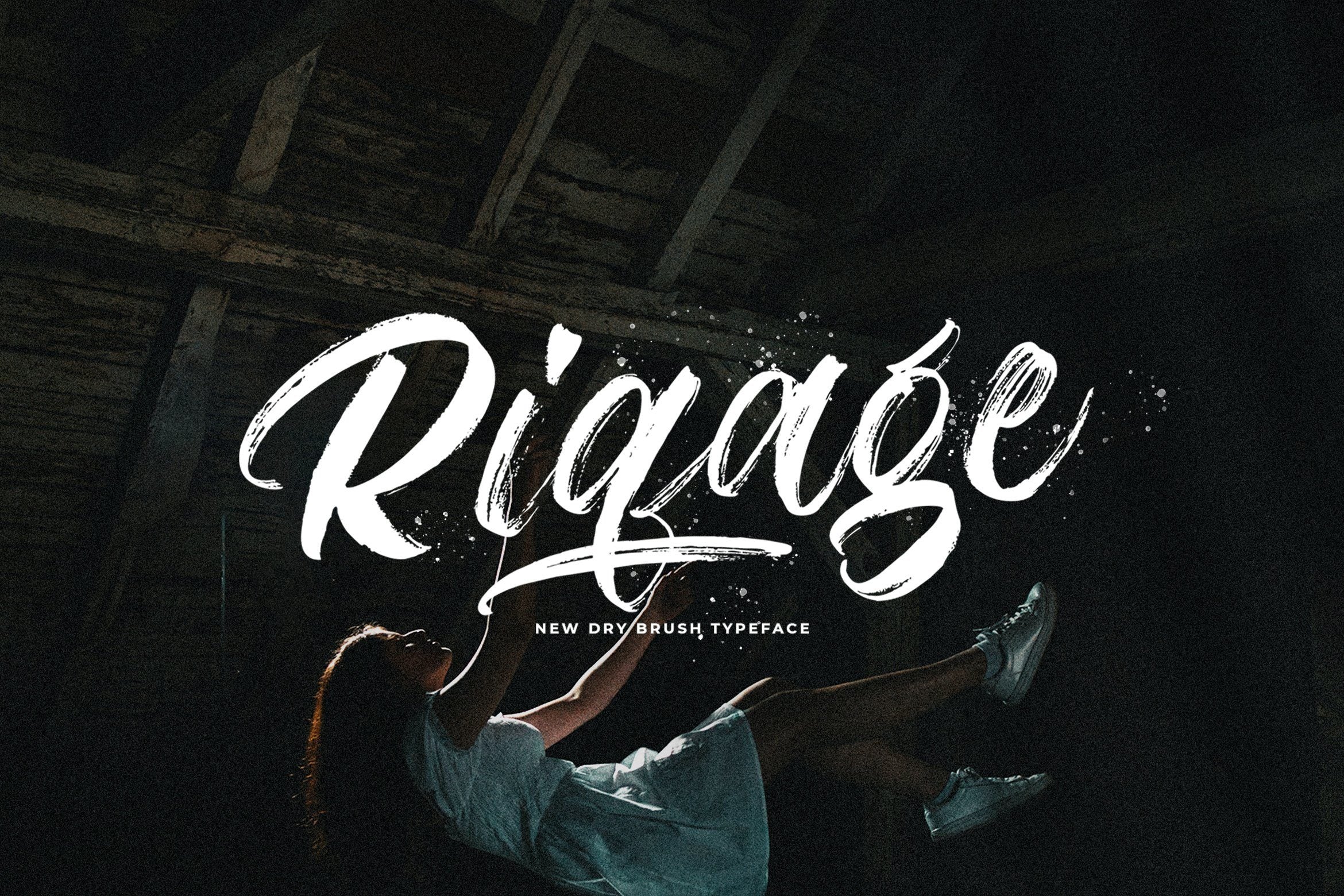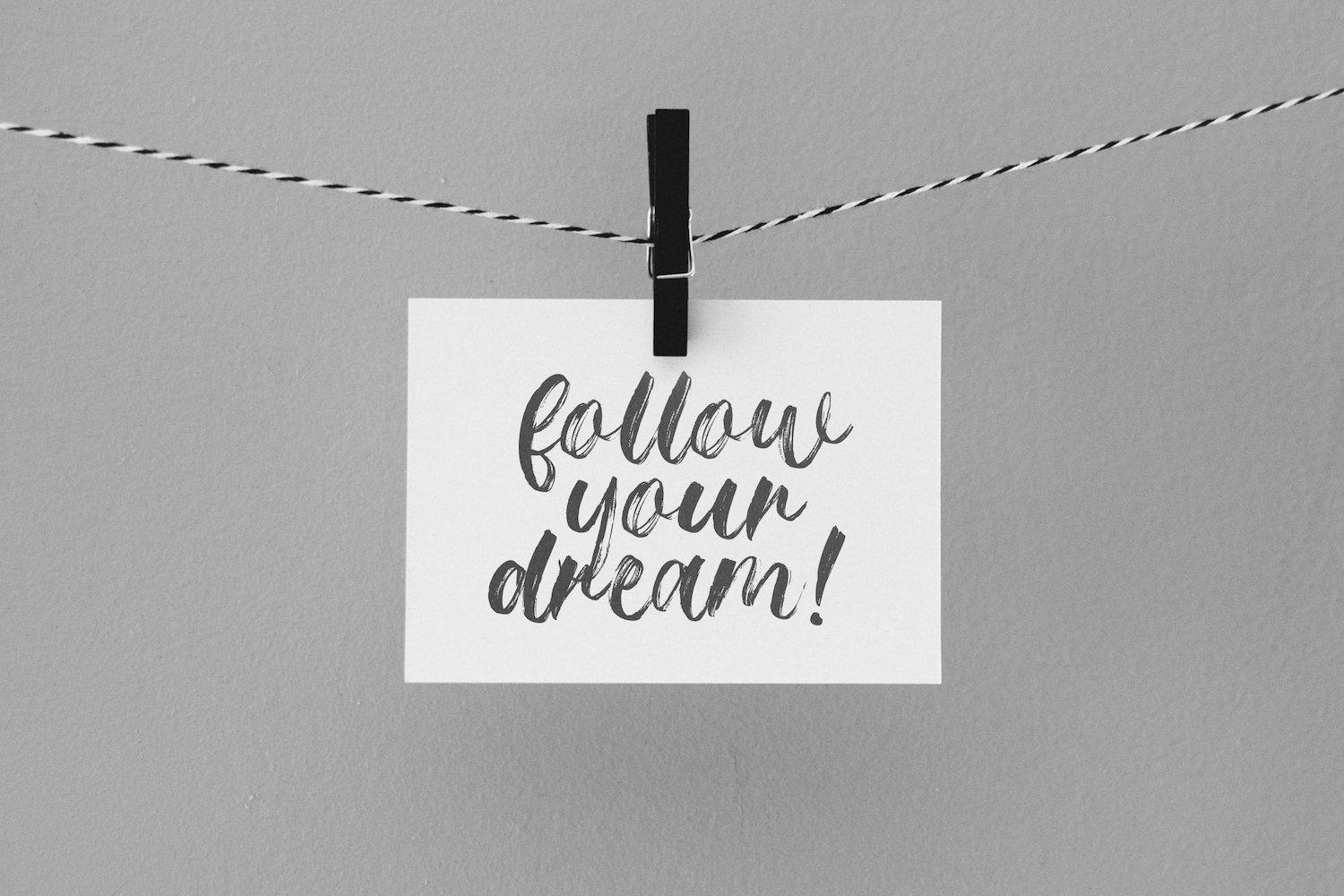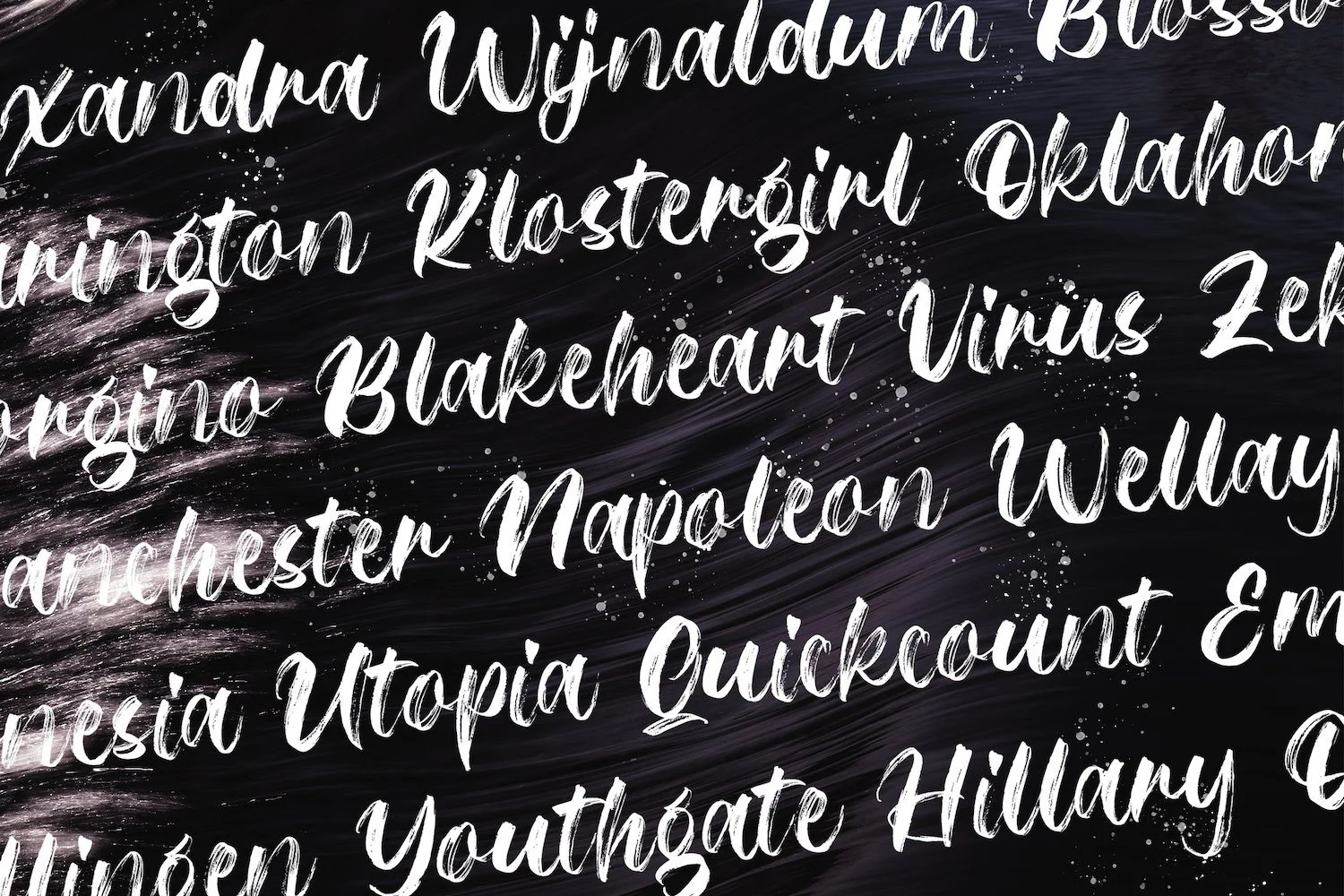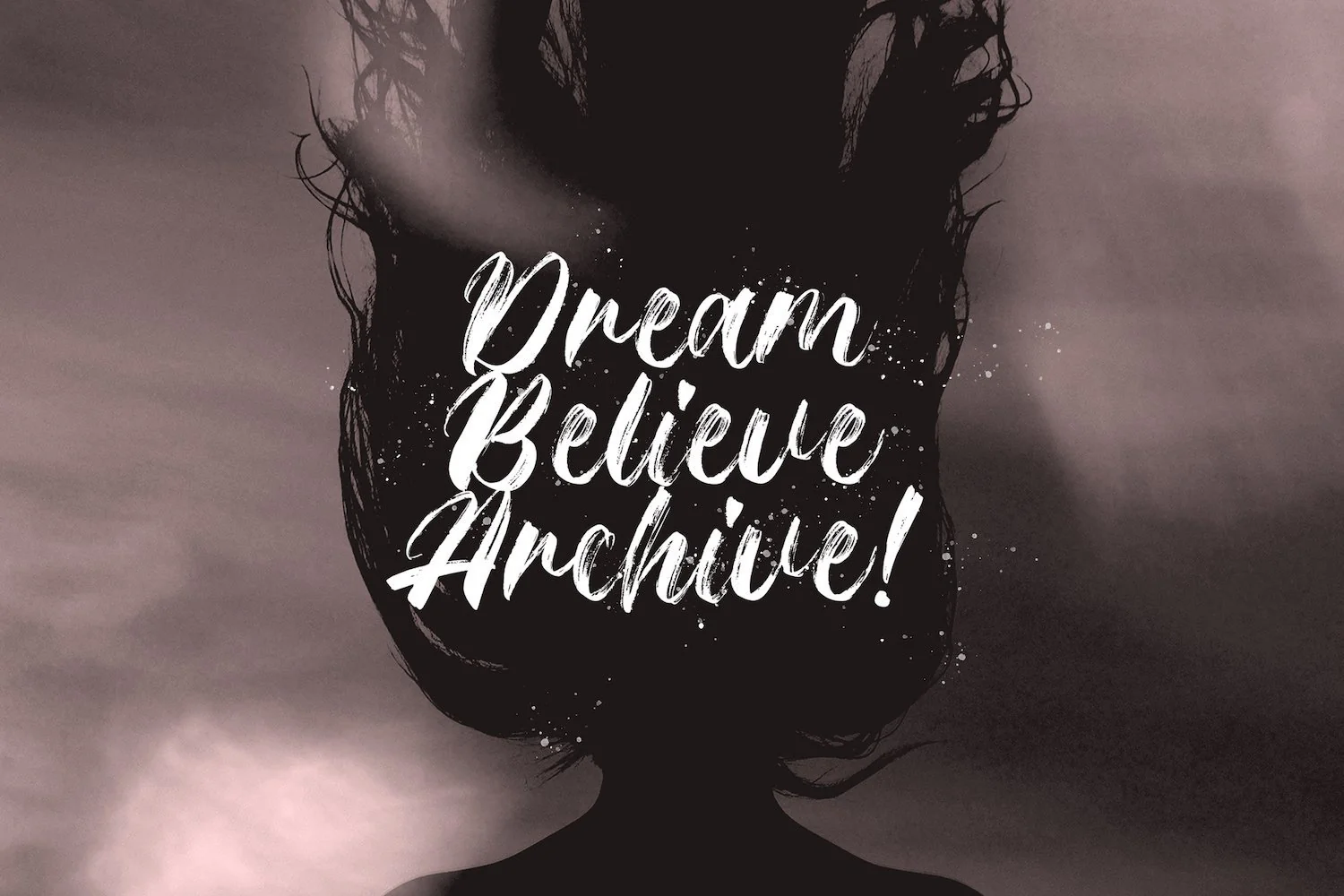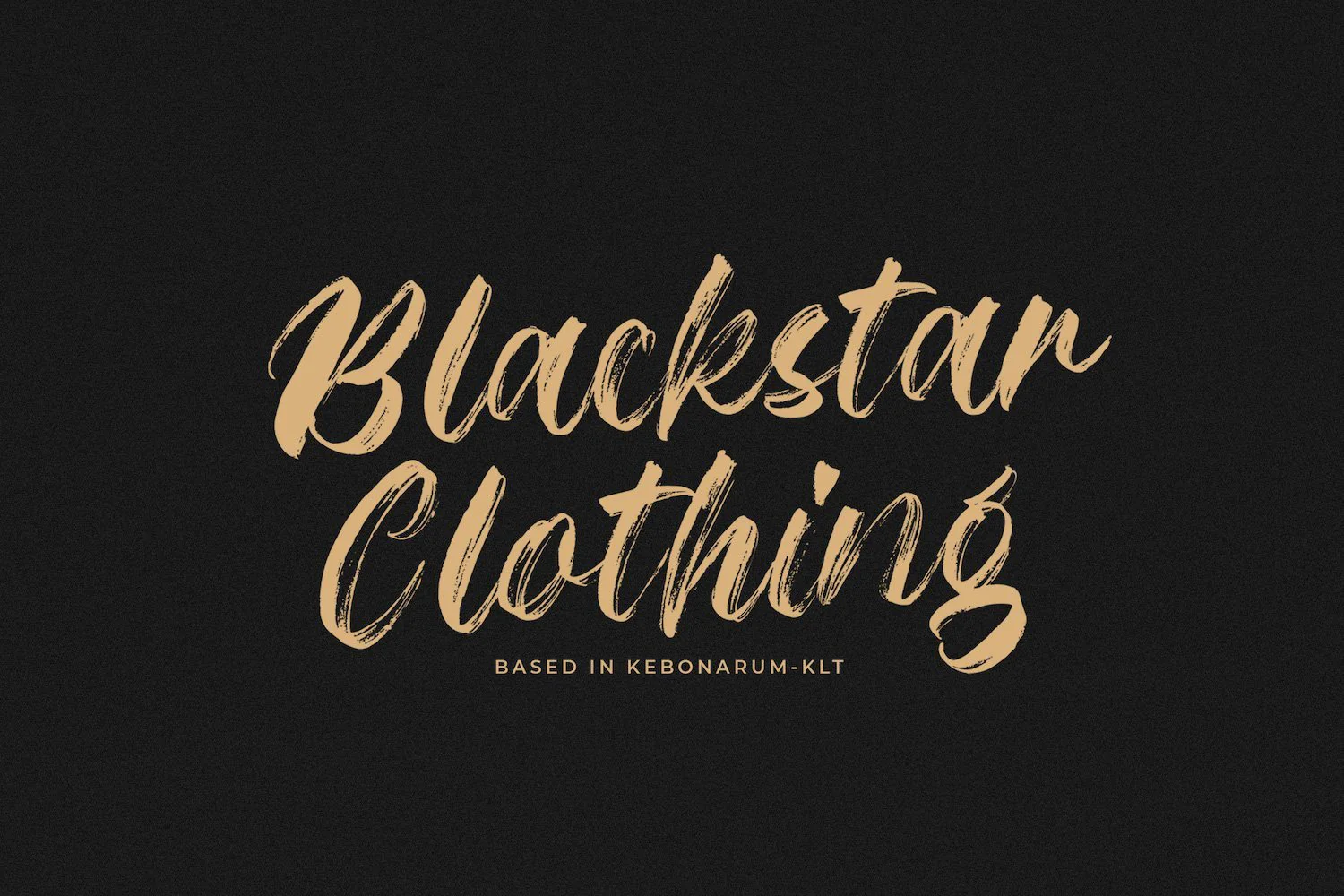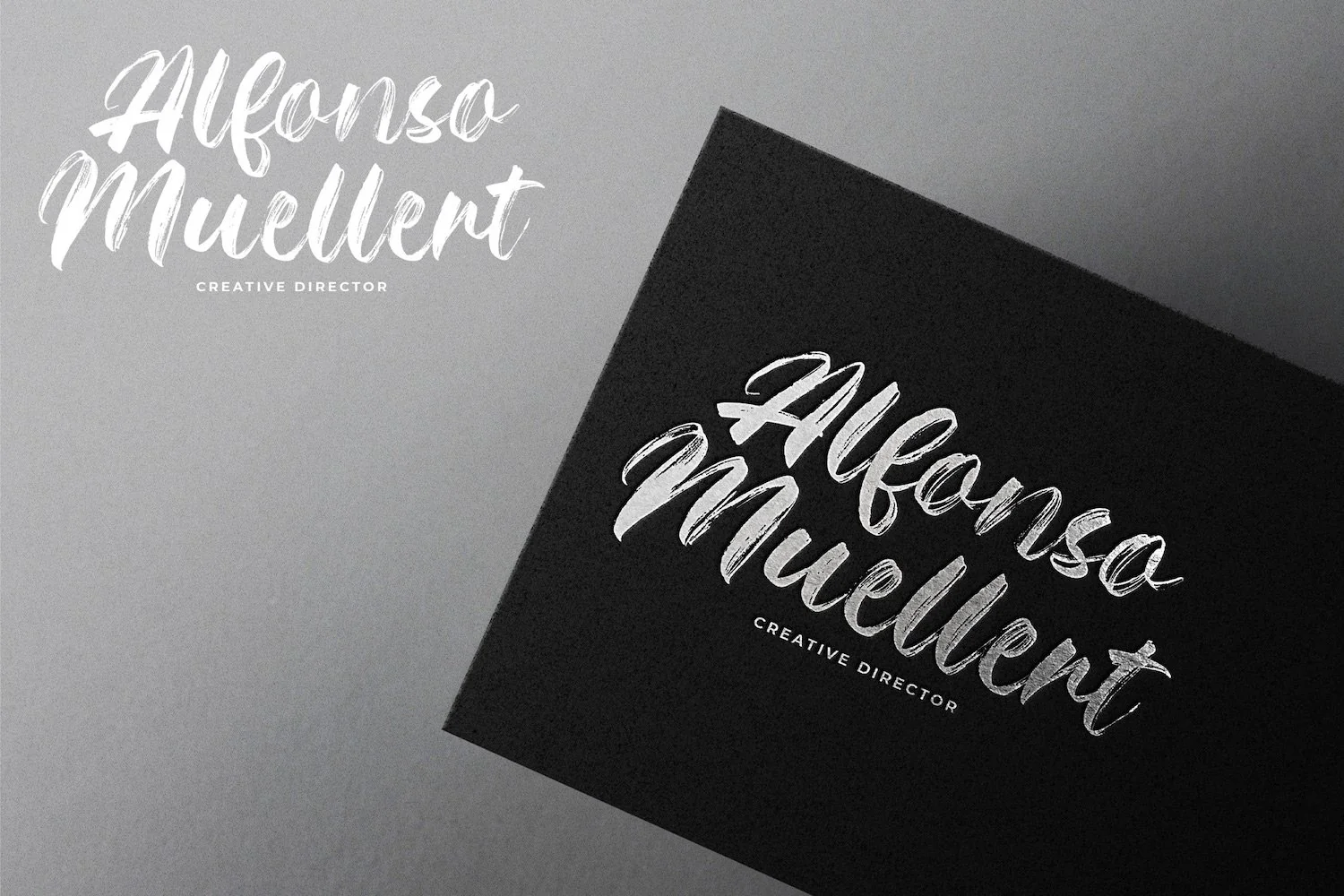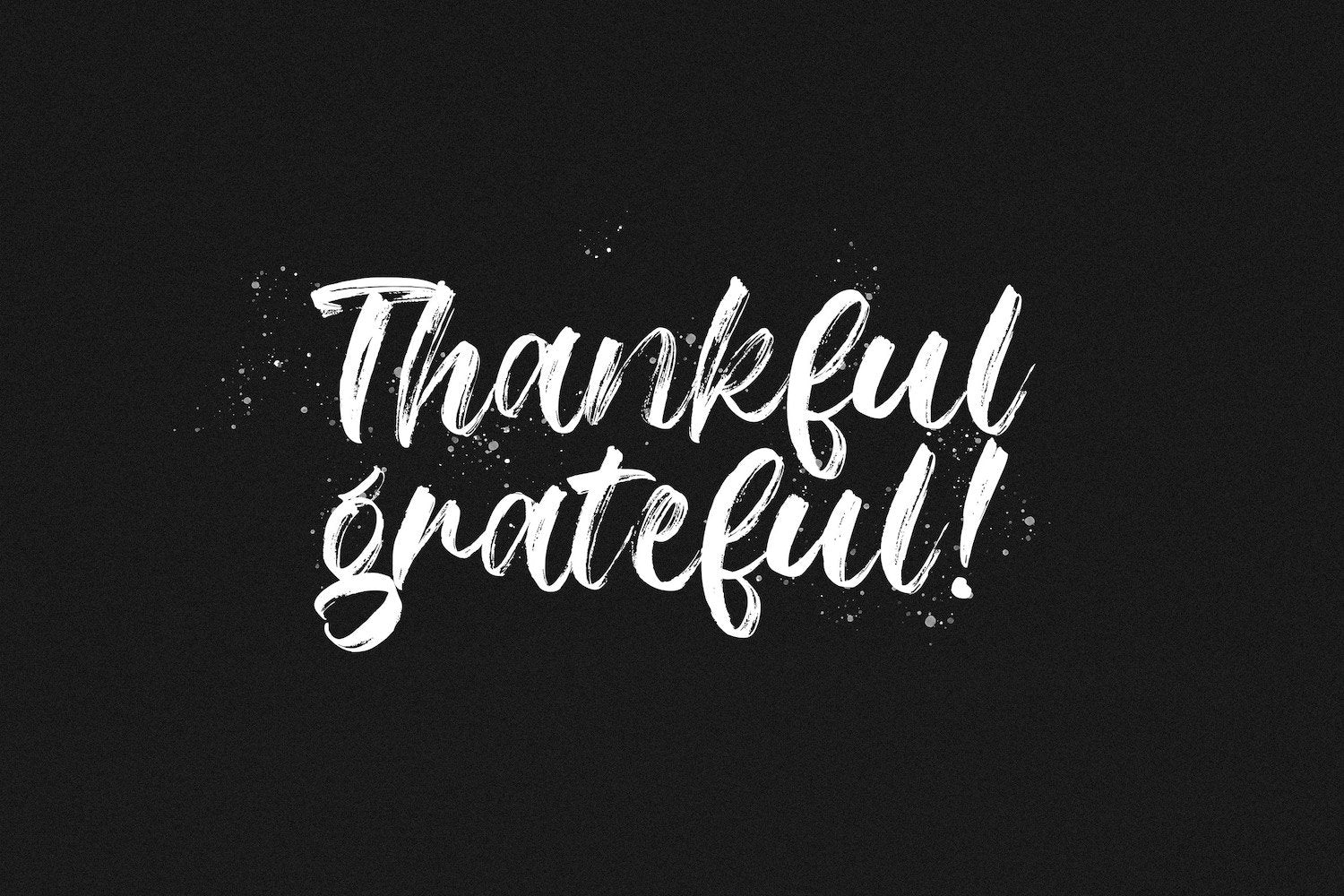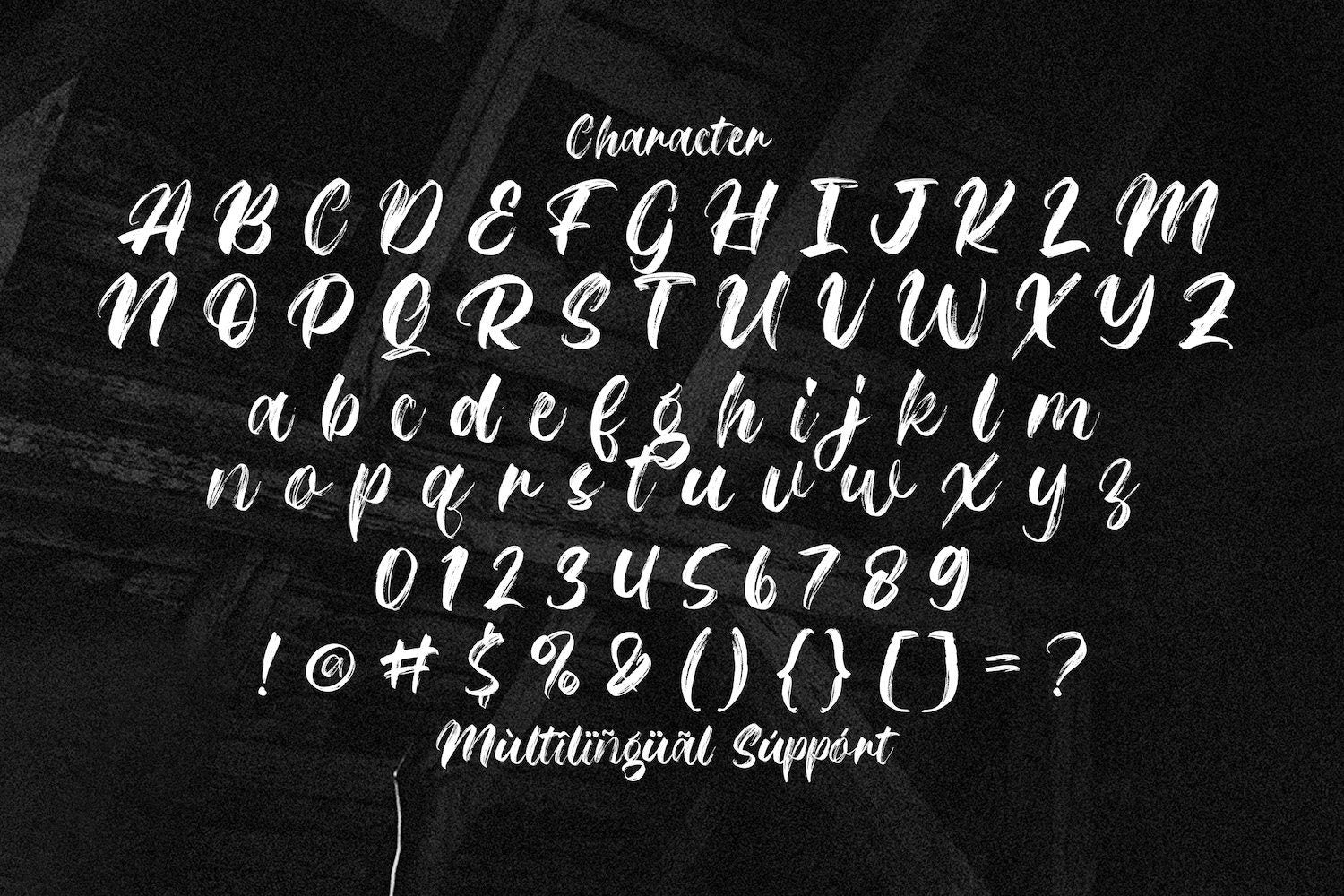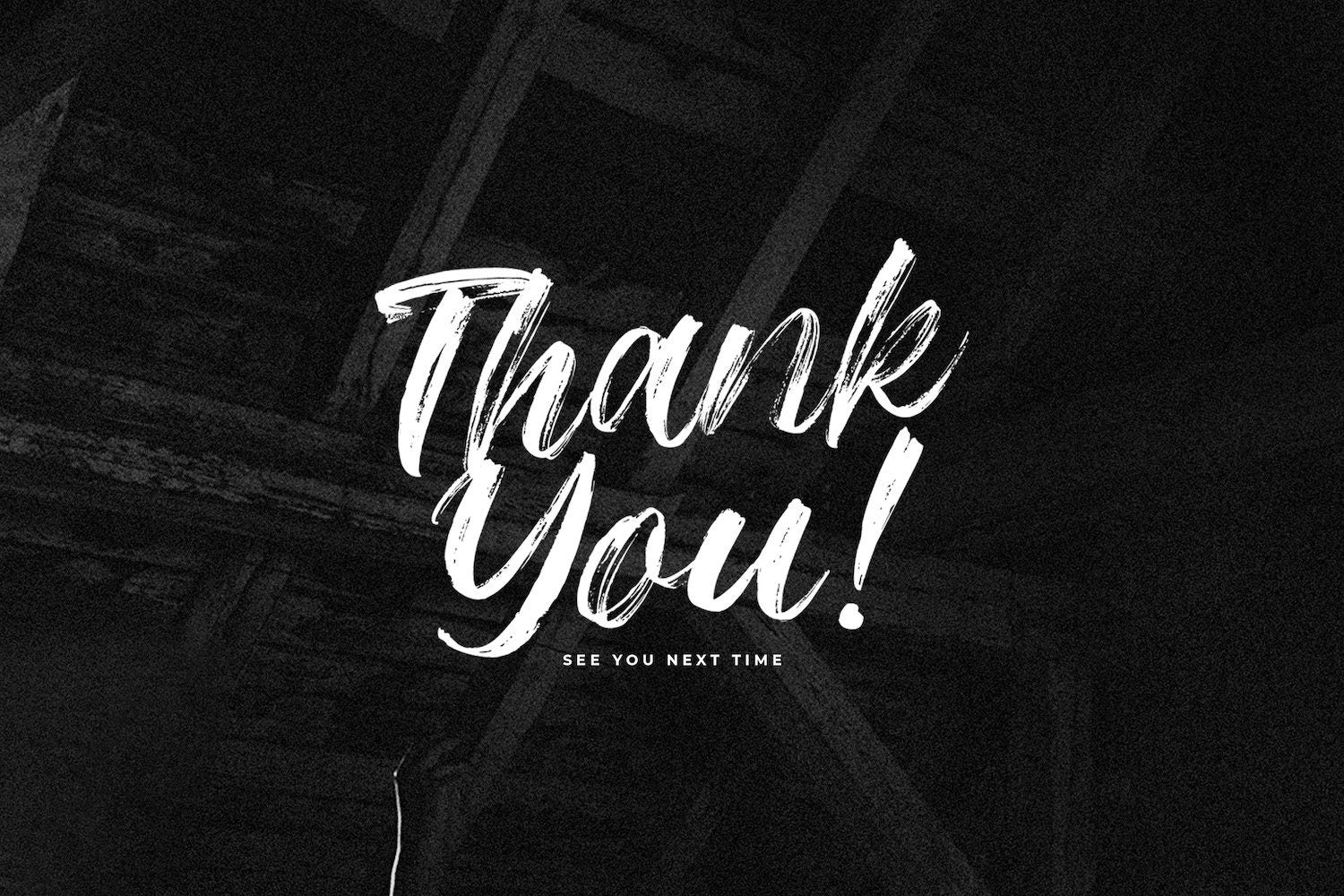
Riqage - Textured Brush Font
Introducing Riqage - Textured Brush Font
Riqage is a textured handbrush font. Get inspired by its unique and beautiful style and add it to your favorite designs!
Introducing Riqage - Textured Brush Font
Riqage is a textured handbrush font. Get inspired by its unique and beautiful style and add it to your favorite designs!